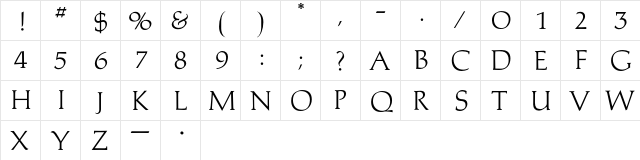
MichelangelOneArchDig Regular Font Preview
MichelangelOneArchDig Regular
Design Context for MichelangelOneArchDig Typeface
MichelangelOneArchDig is a composed and adaptable typeface that performs quietly and consistently across a wide range of design contexts.